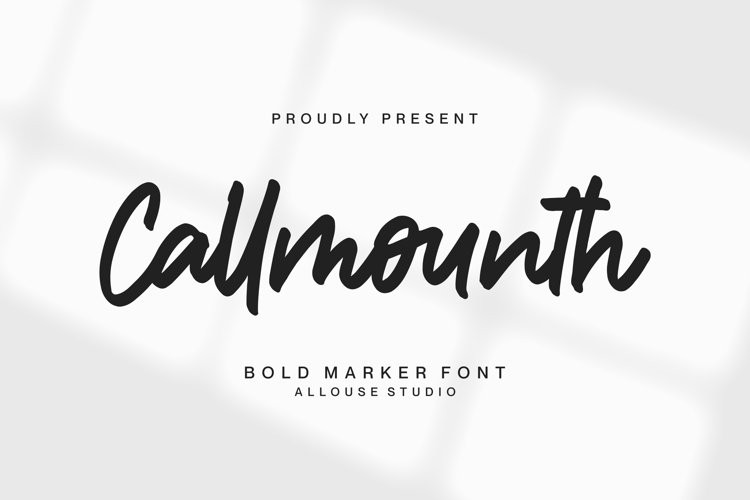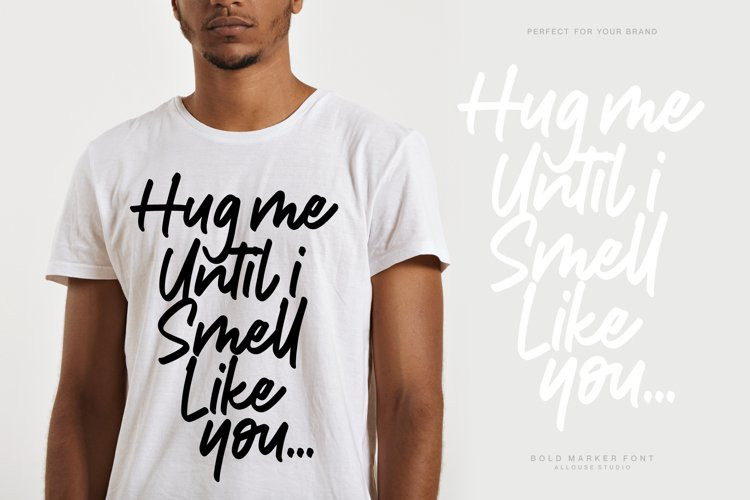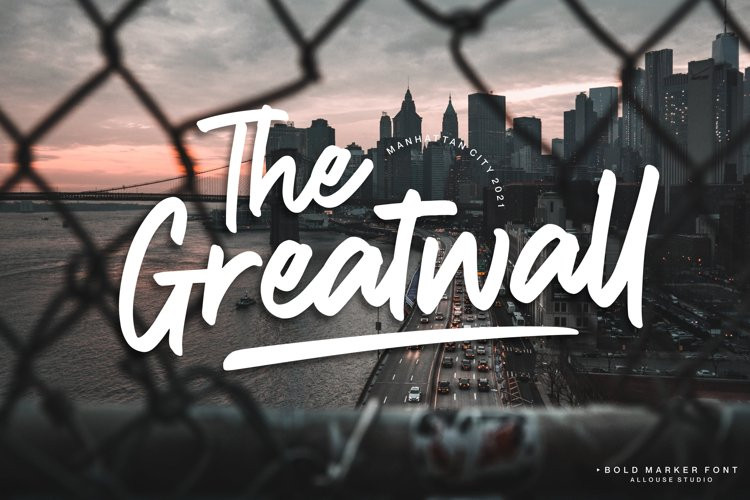
Callmounth Font
Callmounth FontCallmounth is perfect for product packaging, branding project, megazine, social media, wedding, or just used to express words above the background.